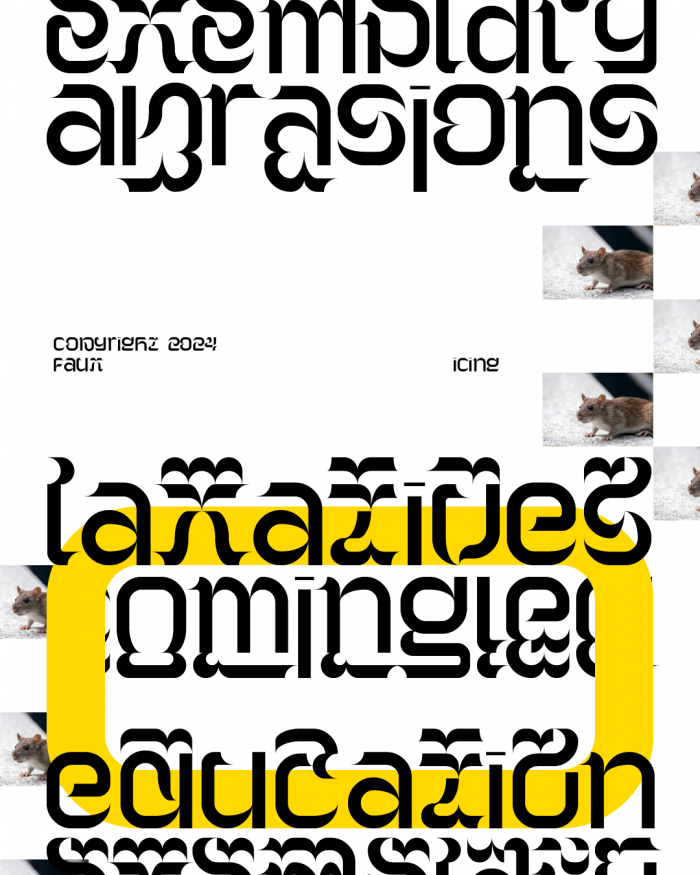
• Part of the Stu font family, Stu Lo utilises flair/swash-like descenders to extend characters downwards. The character glyphs can be used interchangeably between the various Stu styles to achieve a more "bouncy" typesetting effect.
Stu pays homage to oldstyle numerals, where type designers vary the heights of numbers to resemble a line of running lowercase text. It seeks to address the question: "What if every lowercase alphabet also had varying heights?" The result is a font family with full-fledged ascenders ('Hi'), strictly x-heights ('Mid'), and only descenders ('Lo').